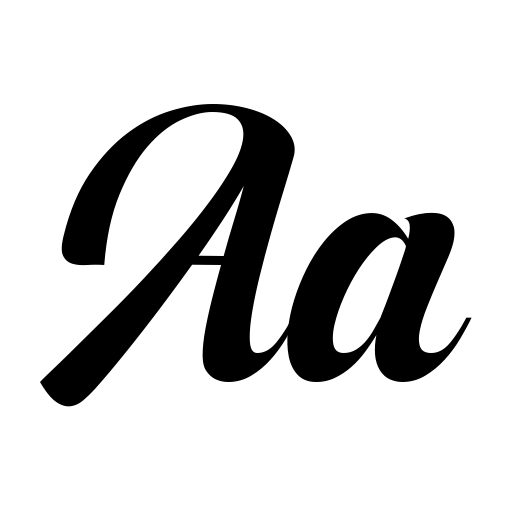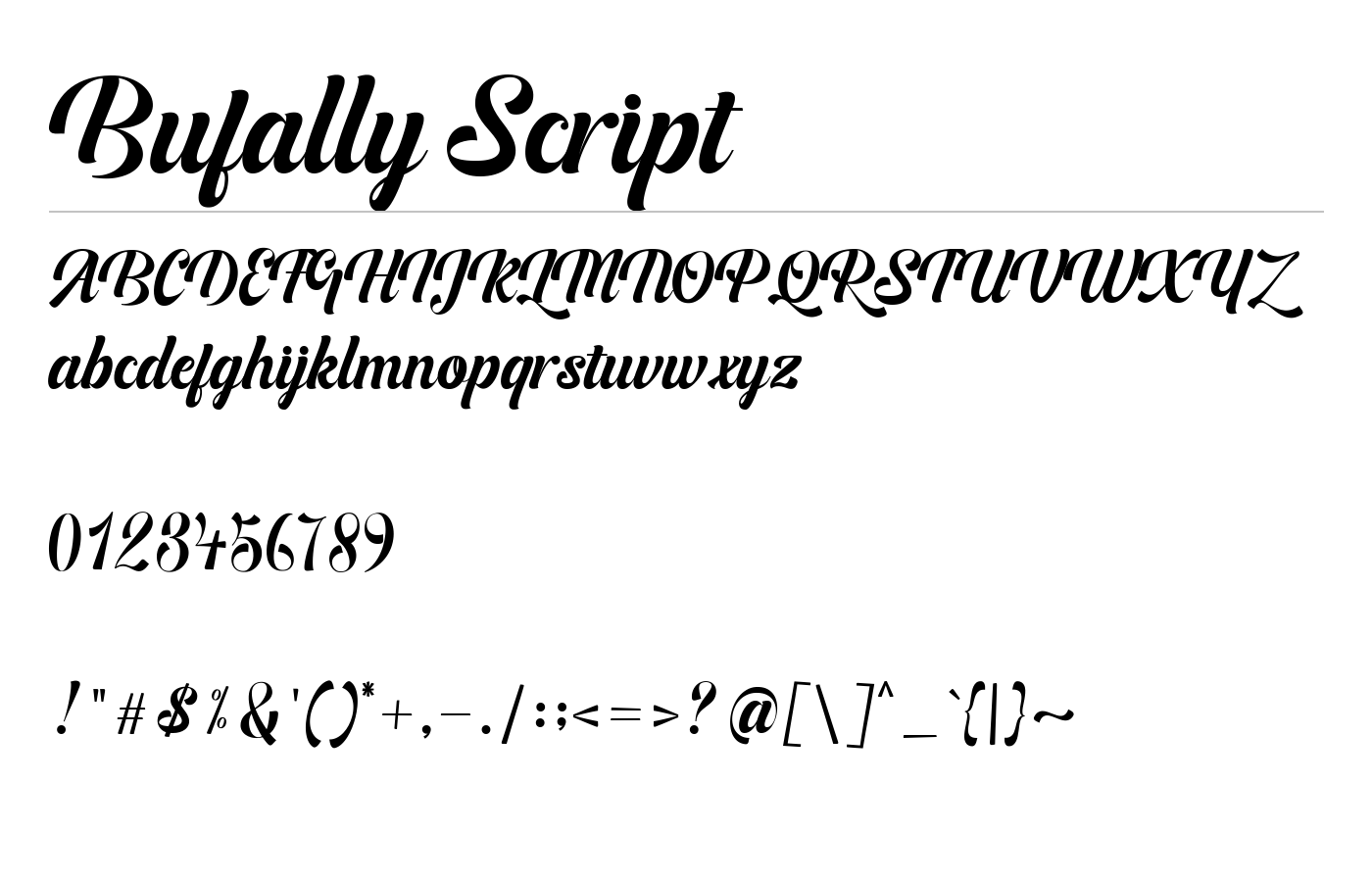
Bufally Script is a lively and elegant script font featuring smooth, flowing strokes with moderate contrast that create a stylish yet readable appearance. Its well-balanced letterforms and distinctive character shapes, such as the curled tails and swashes, make it ideal for feminine branding, invitations, and logos that require a touch of sophistication and charm. This font shines in creative projects where a blend of classic script elegance and modern clarity is needed.
Bufally Script Font
About Bufally Script Font
| Font family | Bufally Script Font |
| Designer | RIZKI ANDIKA |